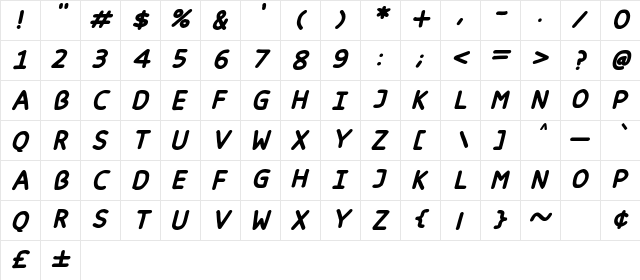
Happy markers Italic
| Designer | Joseph Dawson |
Design Context for Happy markers Typeface
Happy markers takes a measured approach to typography — its balanced proportions and neutral character make it a reliable workhorse for both digital and print work. The slanted form adds forward momentum and visual energy.
Pro Tip: Try Happy markers for annotation and caption copy alongside an upright companion — the contrast in angle creates a dynamic but ordered typographic system.